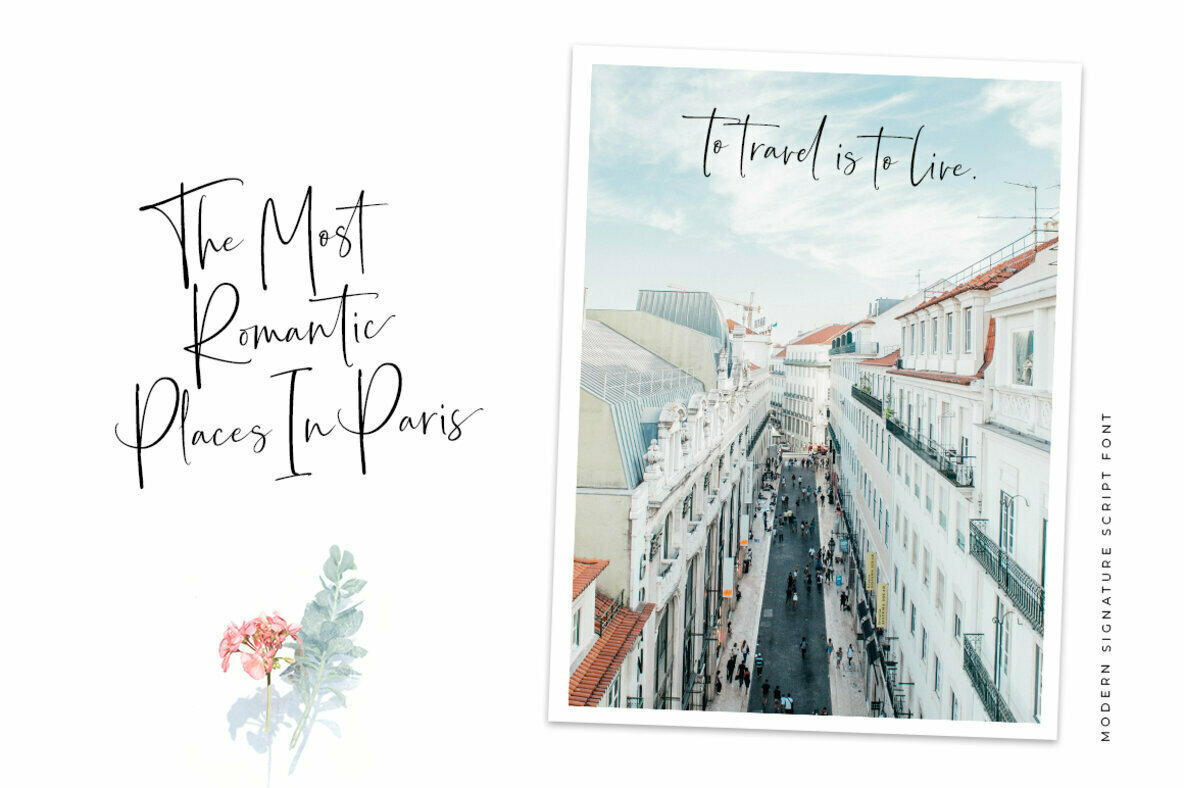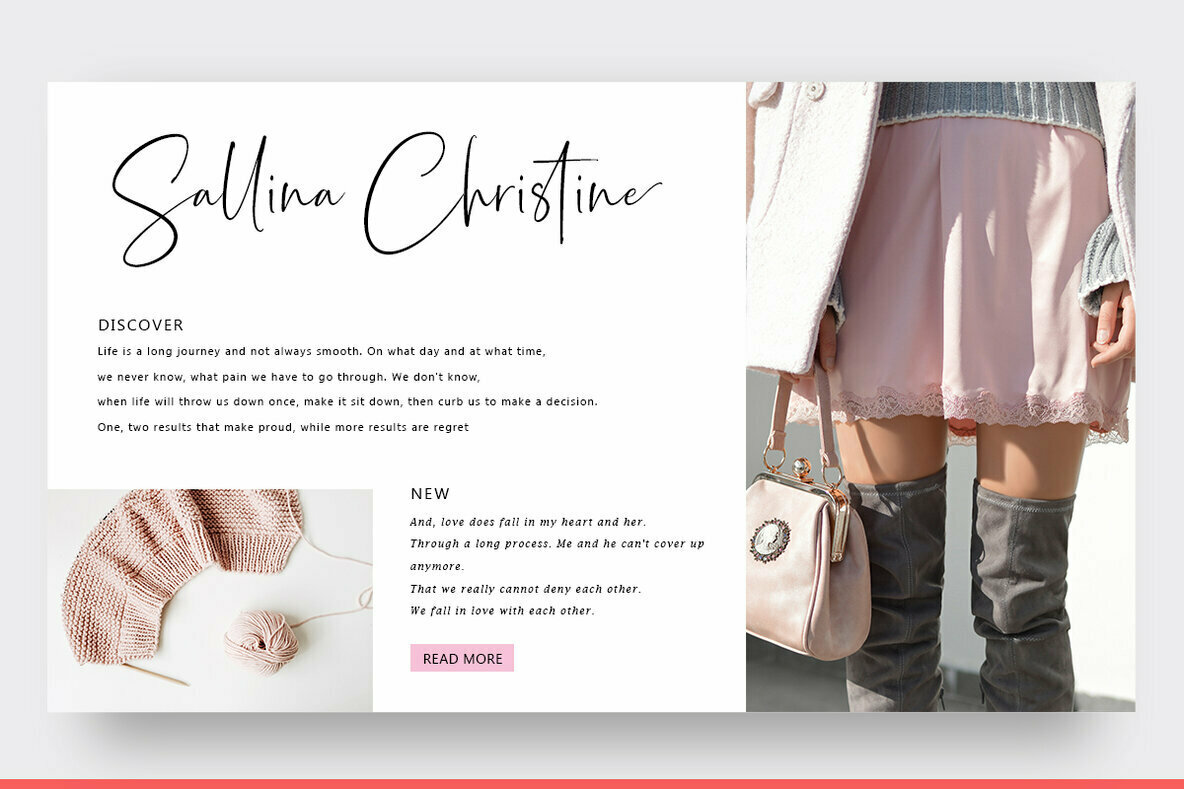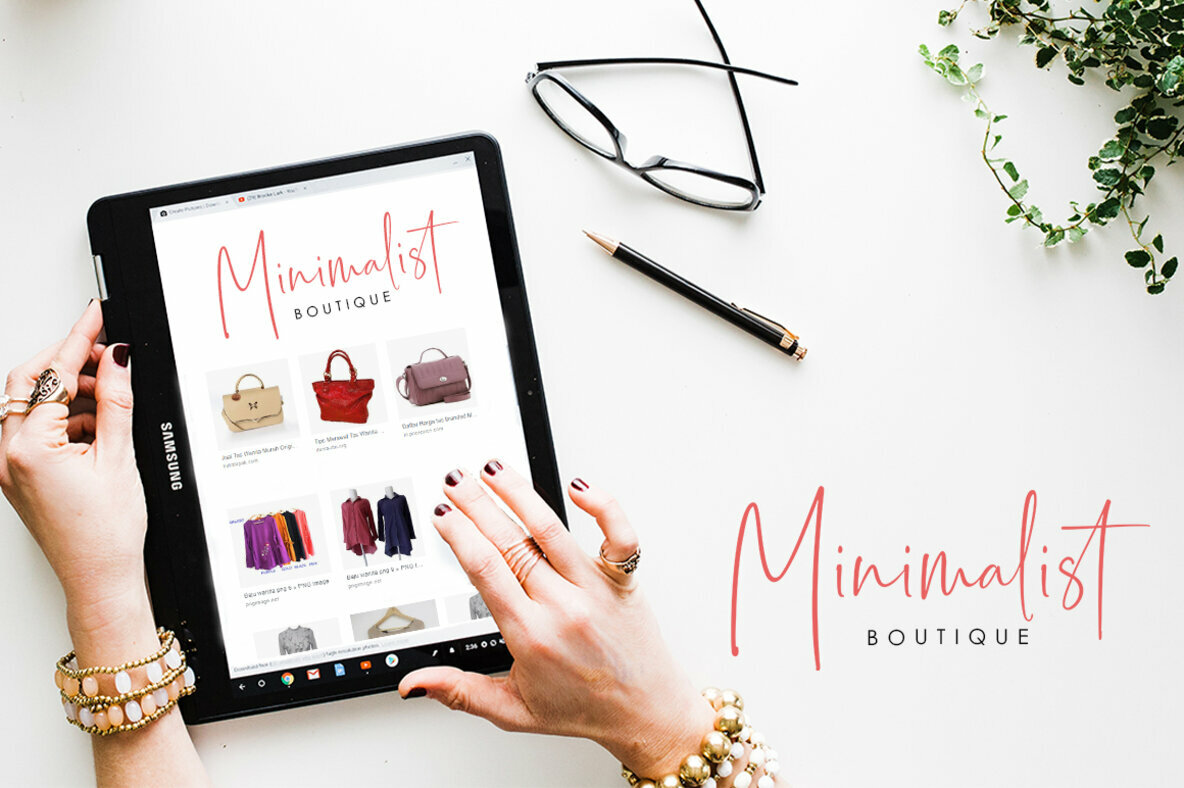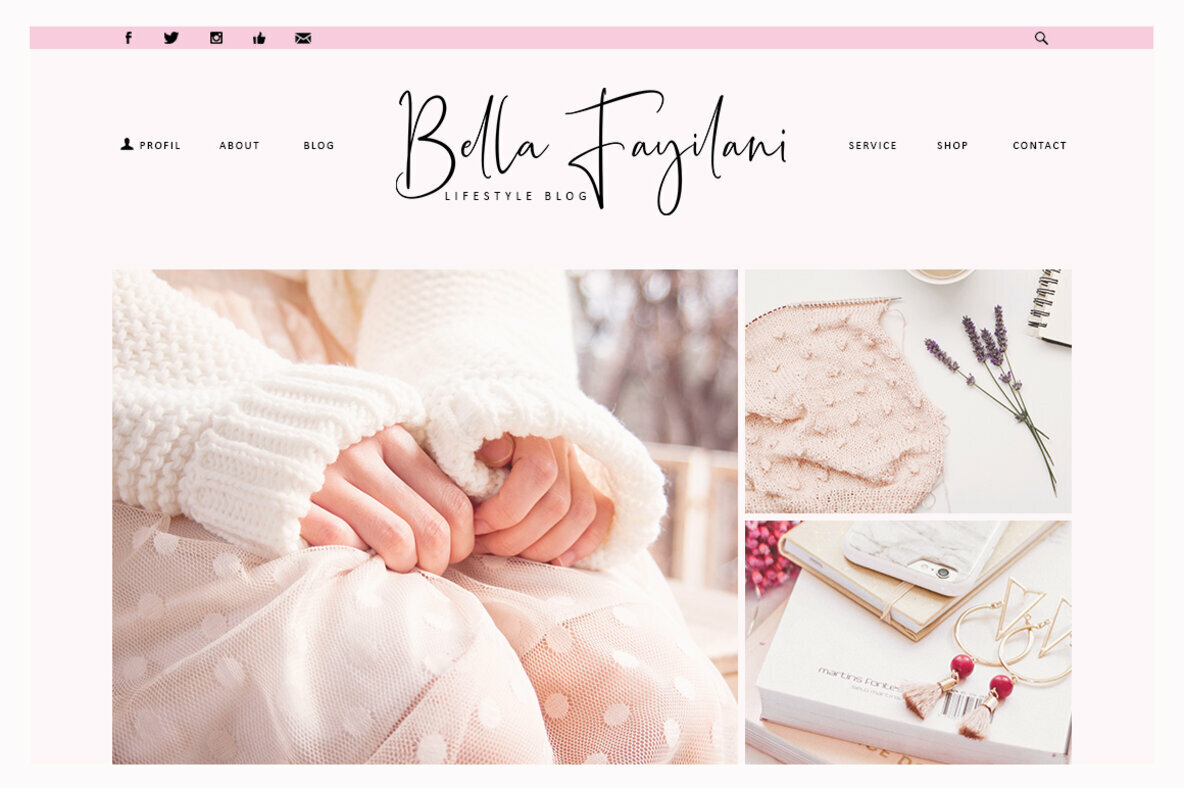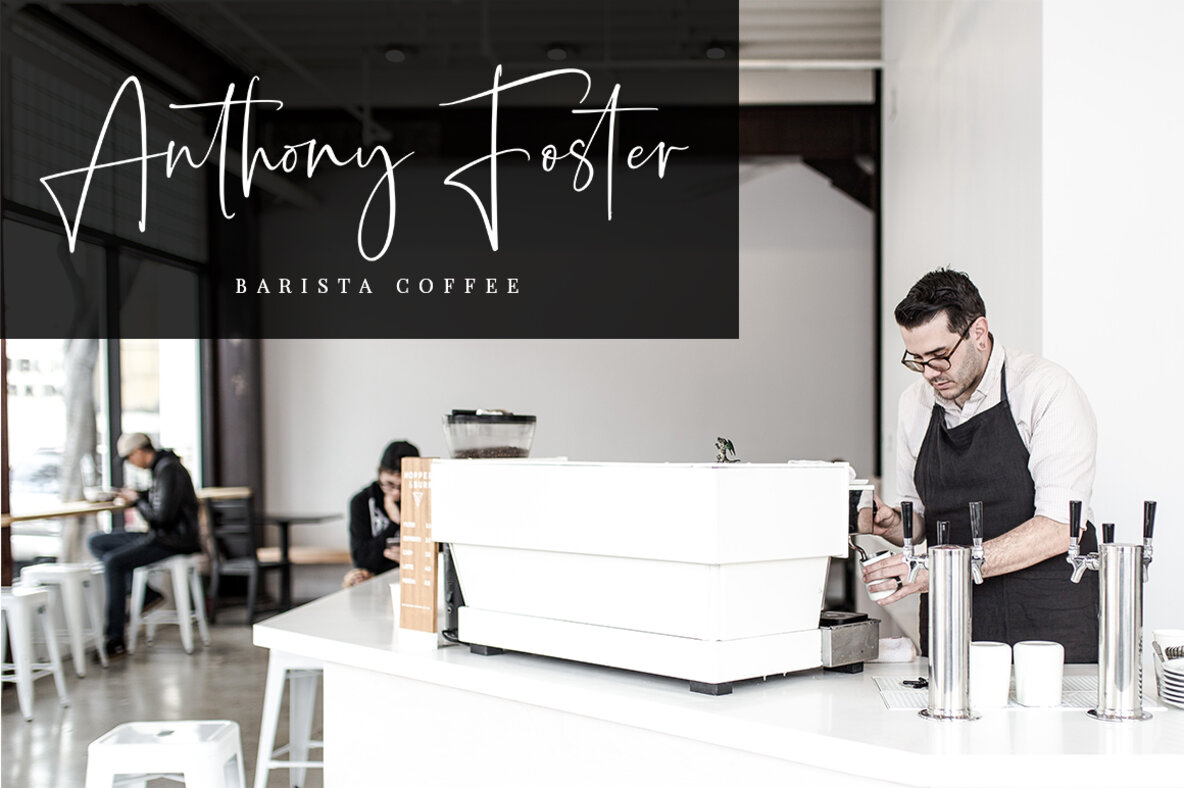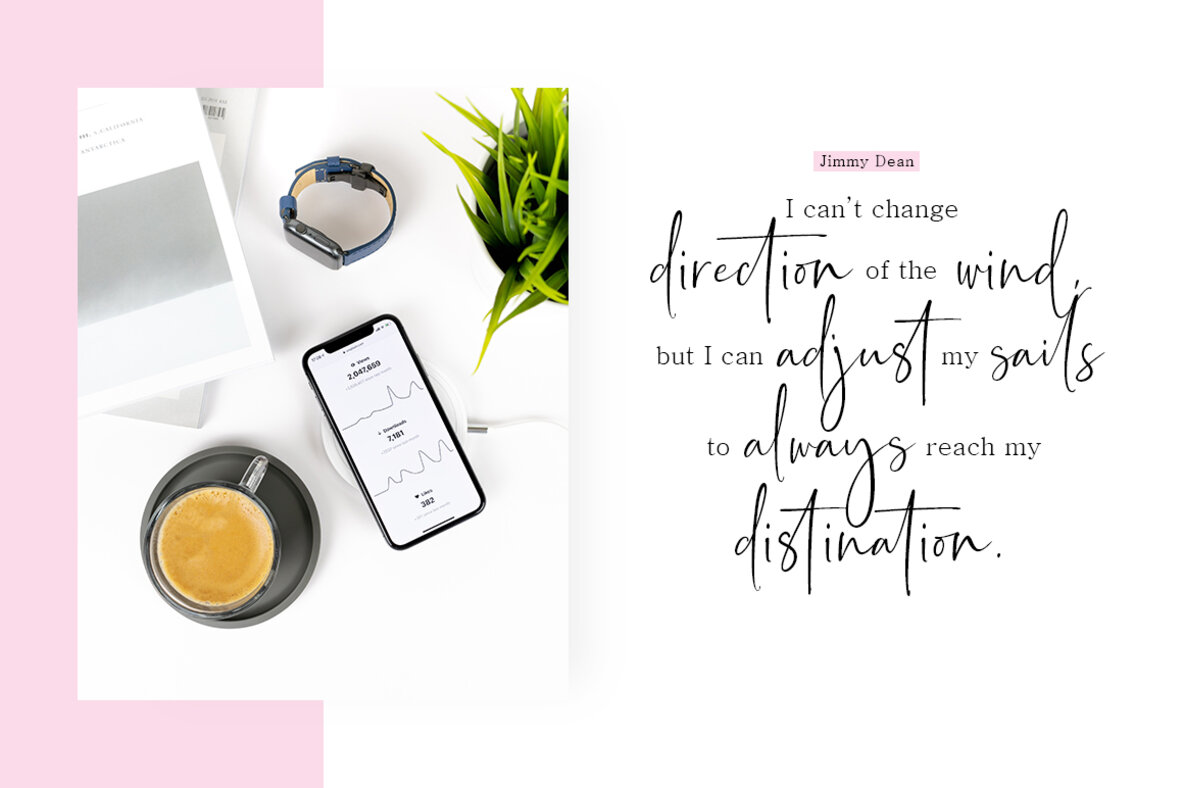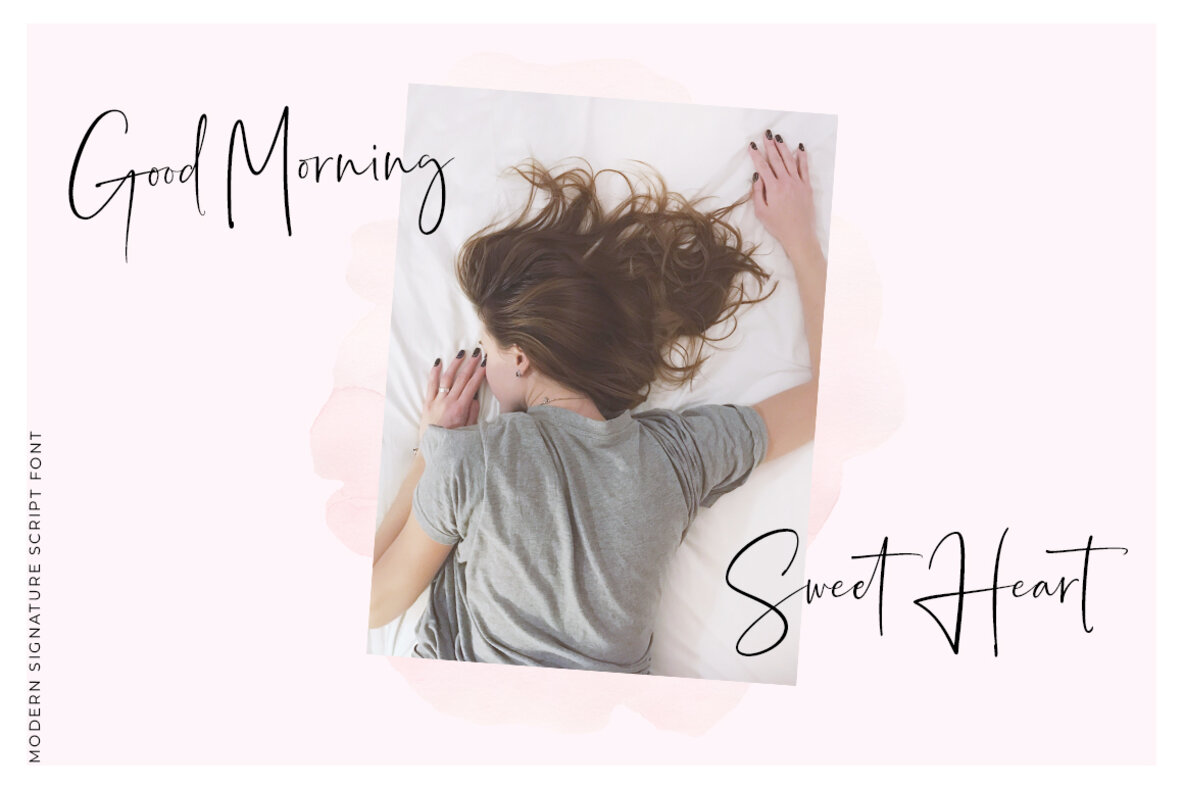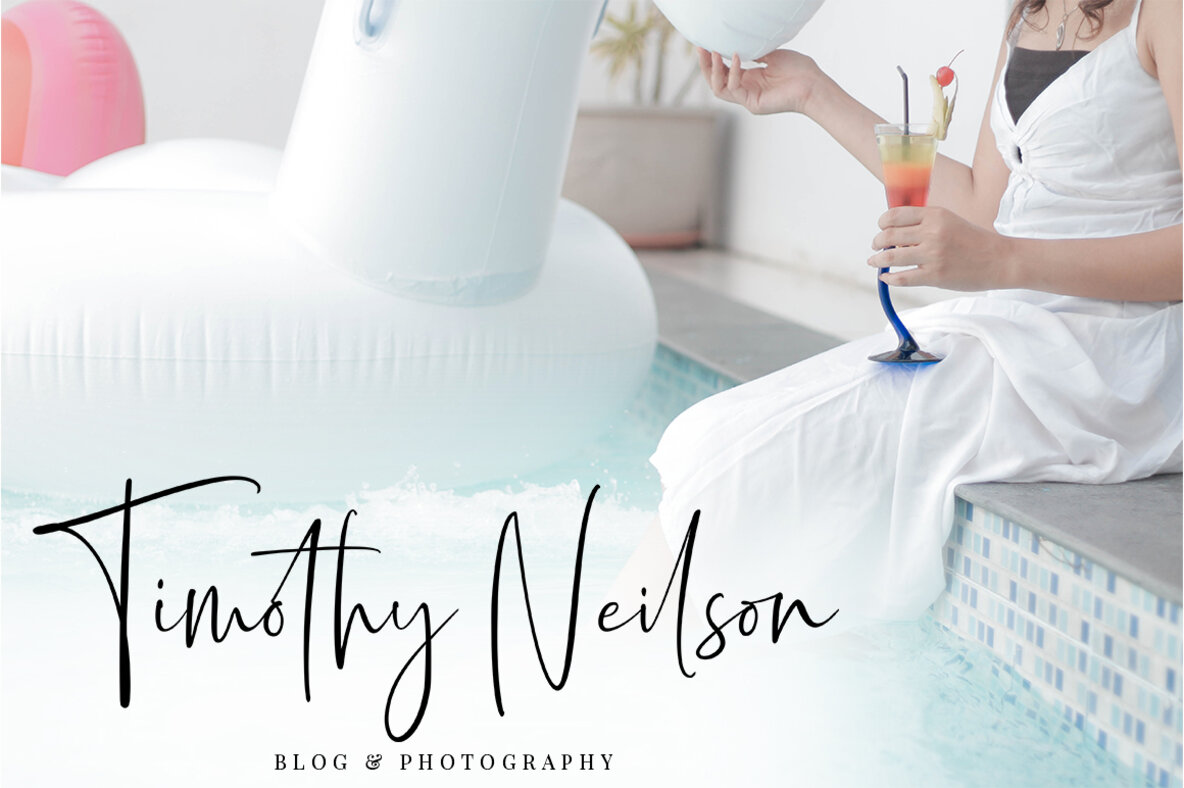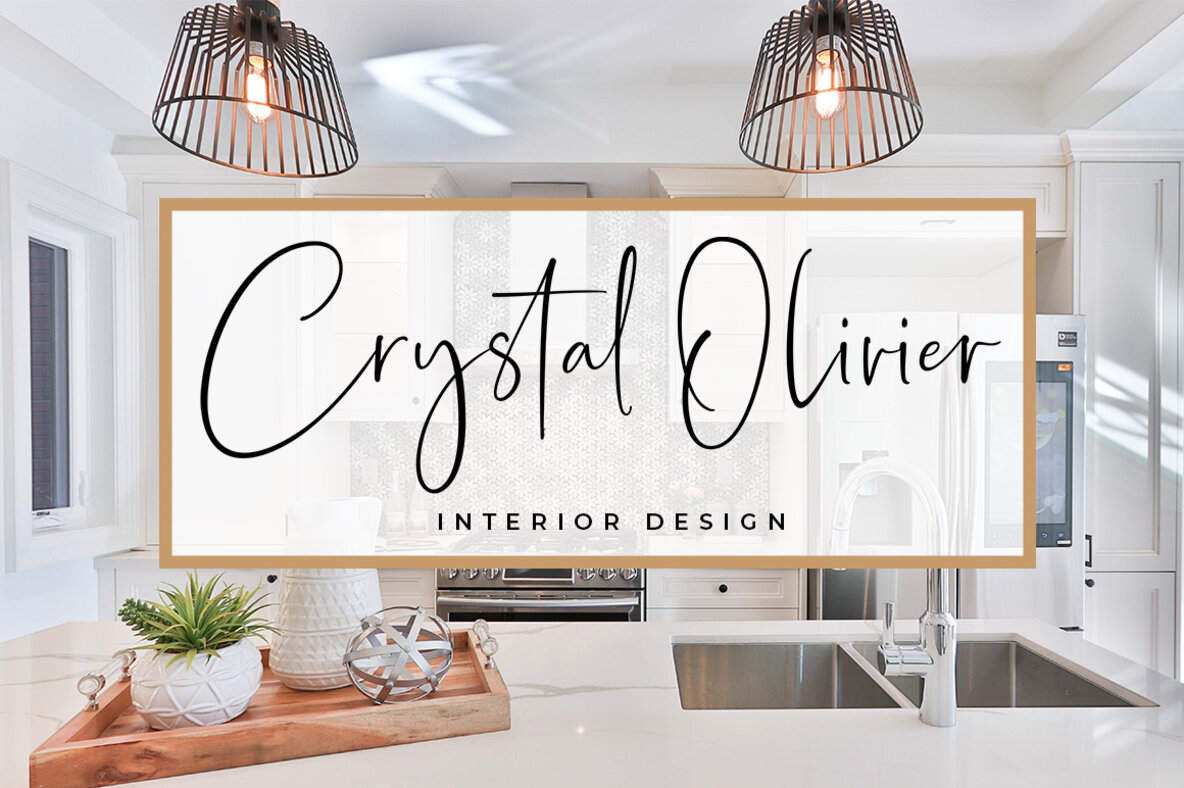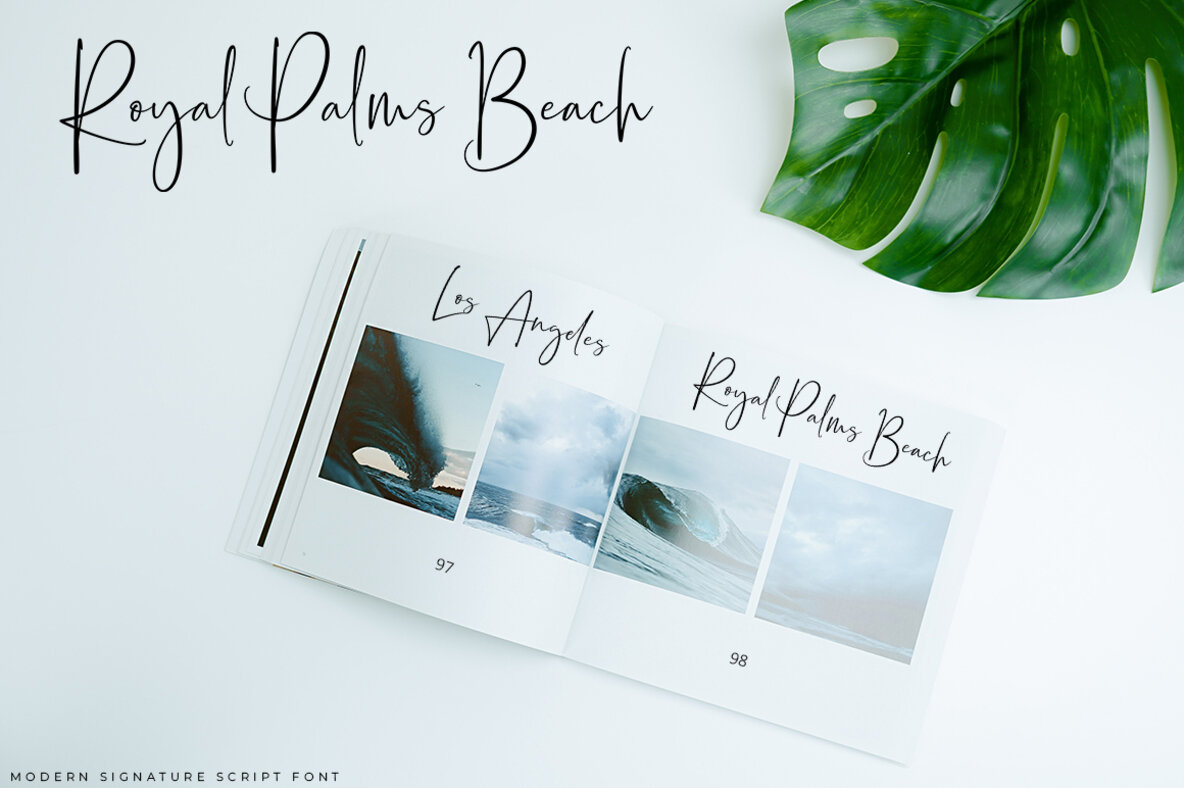
Sagitarius: Modern Signature Handwriting Font
Sagitarius presents a sophisticated yet casual elegance through its unique, modern handwriting style. Designed to resemble a signature, this font features distinctive alternating ligatures that bring a bespoke touch to your design work. Employ its versatility in a myriad of projects such as logos, labels, packaging, blog titles, posters, wedding invitations, social media posts, and Instagram layouts.
• Unique Alternating Ligatures